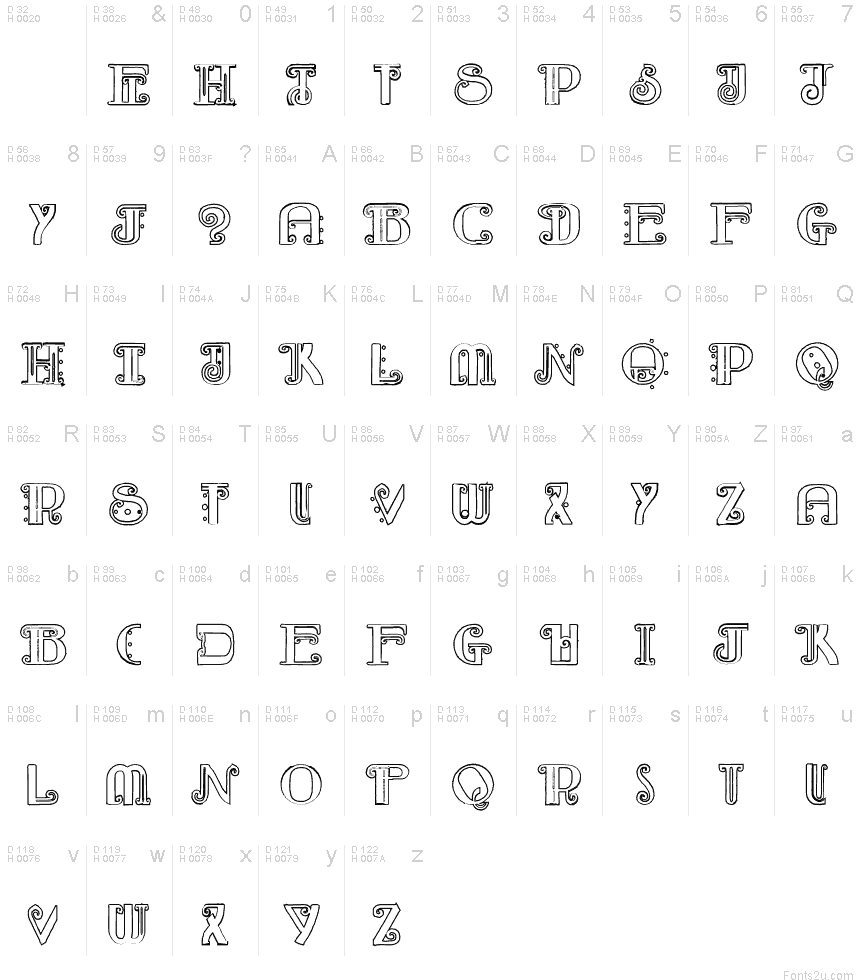
Rebimboca Outline by Paulo W of Intellecta Design is a free curly outlined display font with a theatrical, ornamental air. Tall, slim capitals mix squared frames with rounded arches and repeated inward curls. Small dot accents sharpen the engraved, sign-painted impression.
Looping details echo decorative borders and scrollwork, linking the lettering to illustrated posters and book covers. The same old-show character suits event graphics and music packaging with a playful period reference. For entertainment branding, the letters can become a decorative emblem rather than neutral lettering.
Rebimboca Free is a non-commercial version by Intellecta Design with an unpublished set that differs from the original Rebimboca.